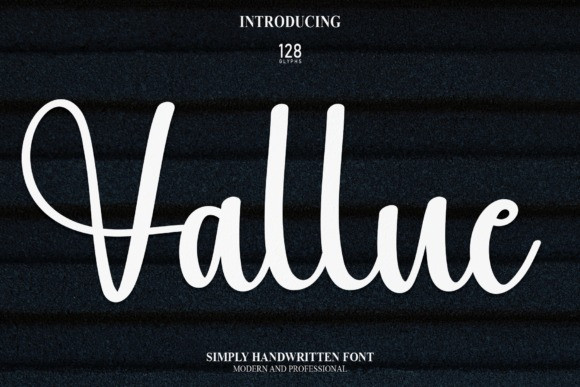
Vallue Script Font
Vallue Script Font is a fun and friendly handwritten font. Use it to turn any design idea into a true standout. Get inspired by its unique charm and create lovely designs.